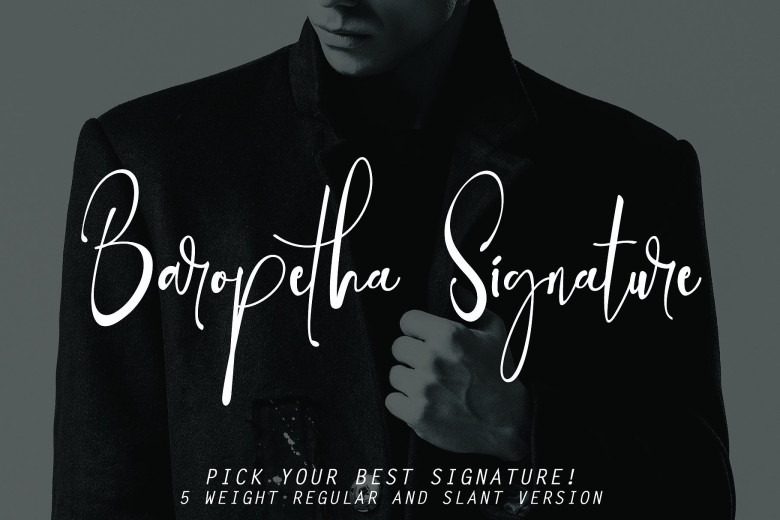
Baropetha Signature Demo Font
This is a type of handwritten signature. Its energetic appearance makes it perfect for all your designs, add it to your collection of fonts. Introducing Baropetha Font! Baropetha Signature Font is a font with simple and classy taste, comes with 5 Elegant Weight Variations, opentype features such as ligatures, and FREE Italic Version .
Baropetha Signature is the great choice for watermark on photography, signature or signature logo design, album cover, business card, quotes, and many other design project.